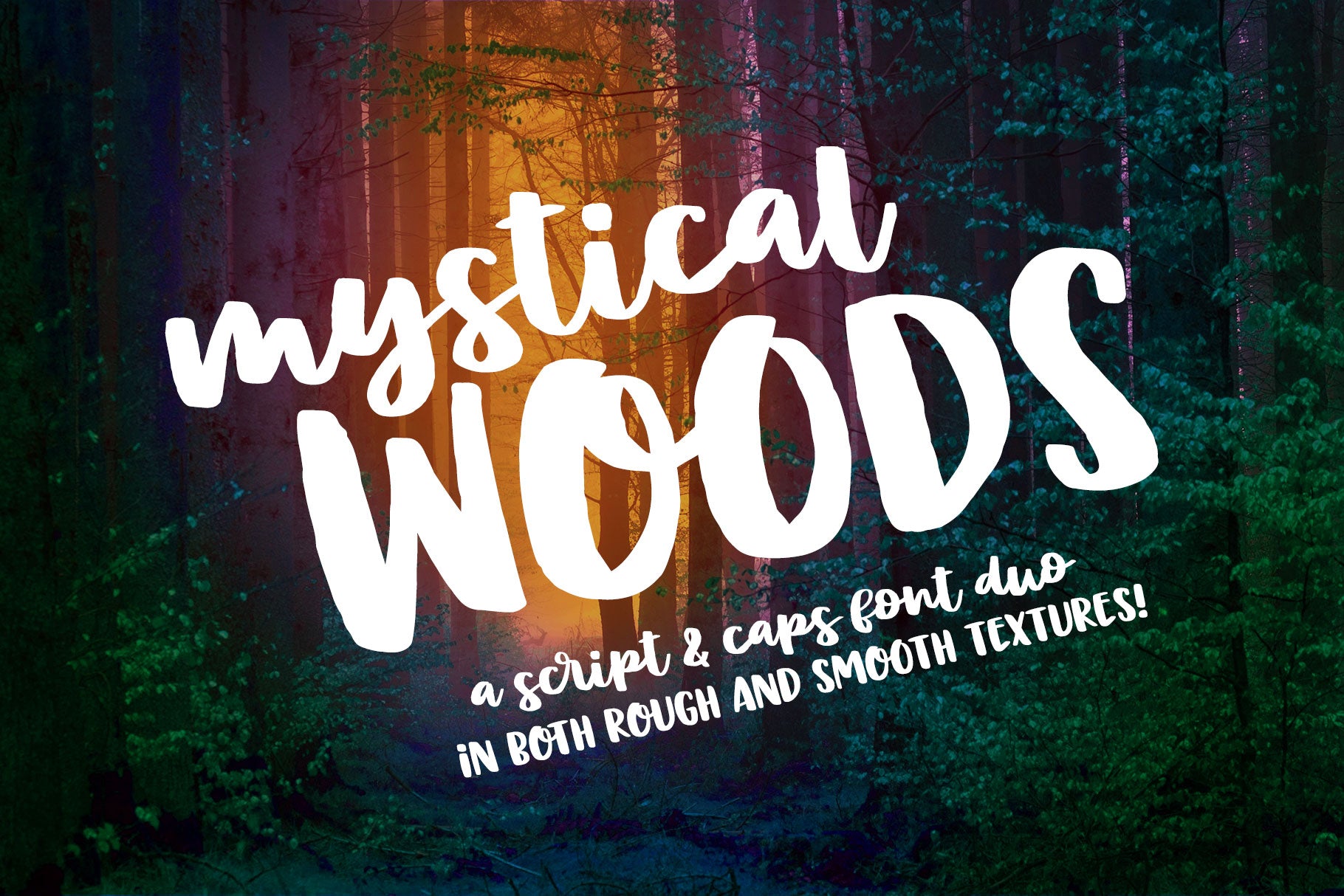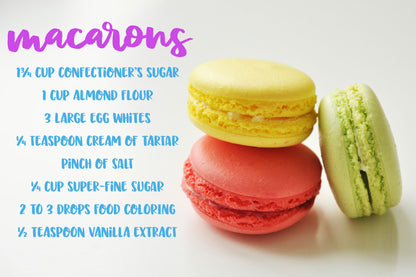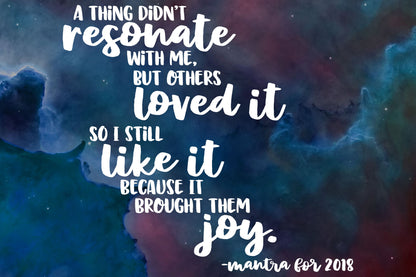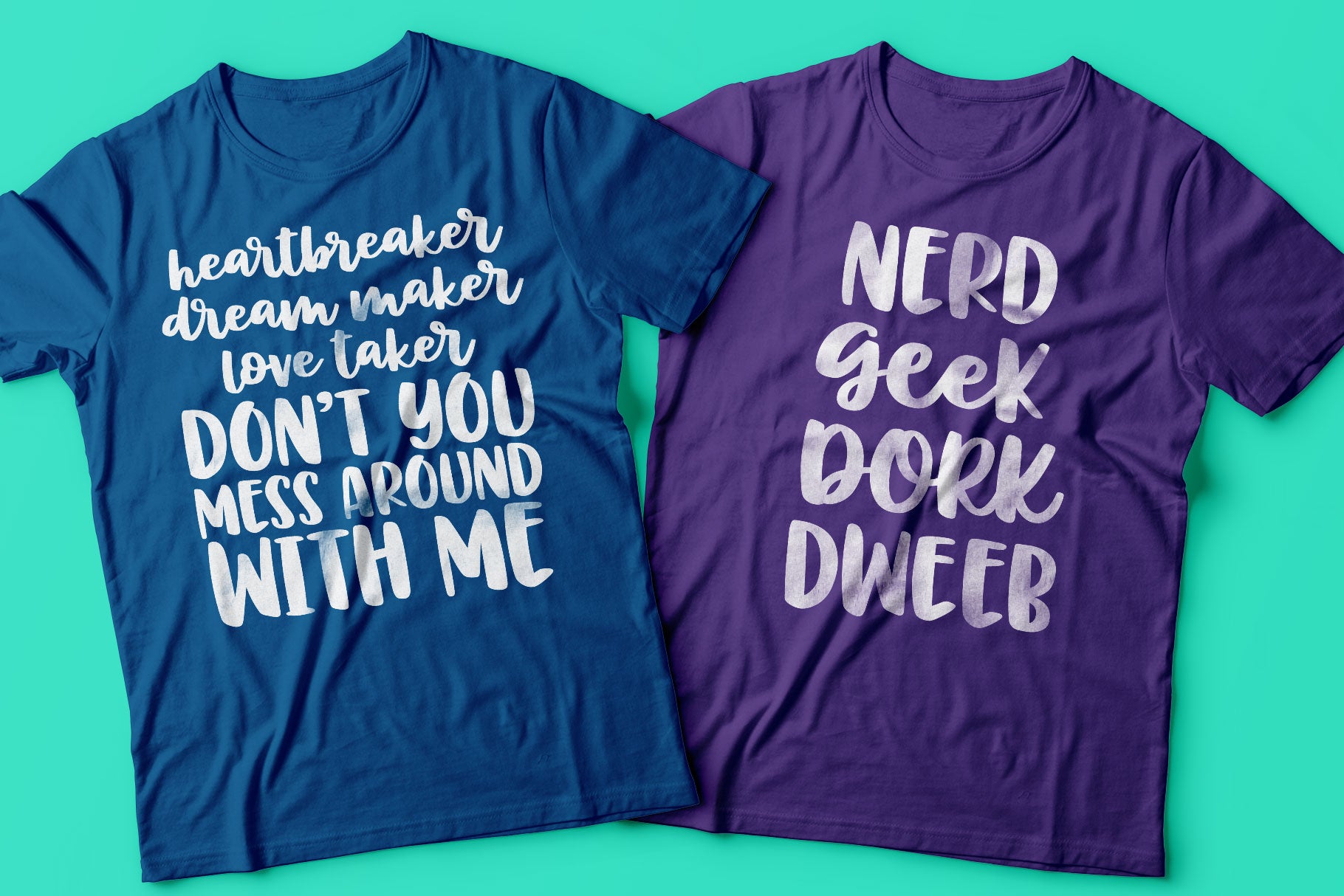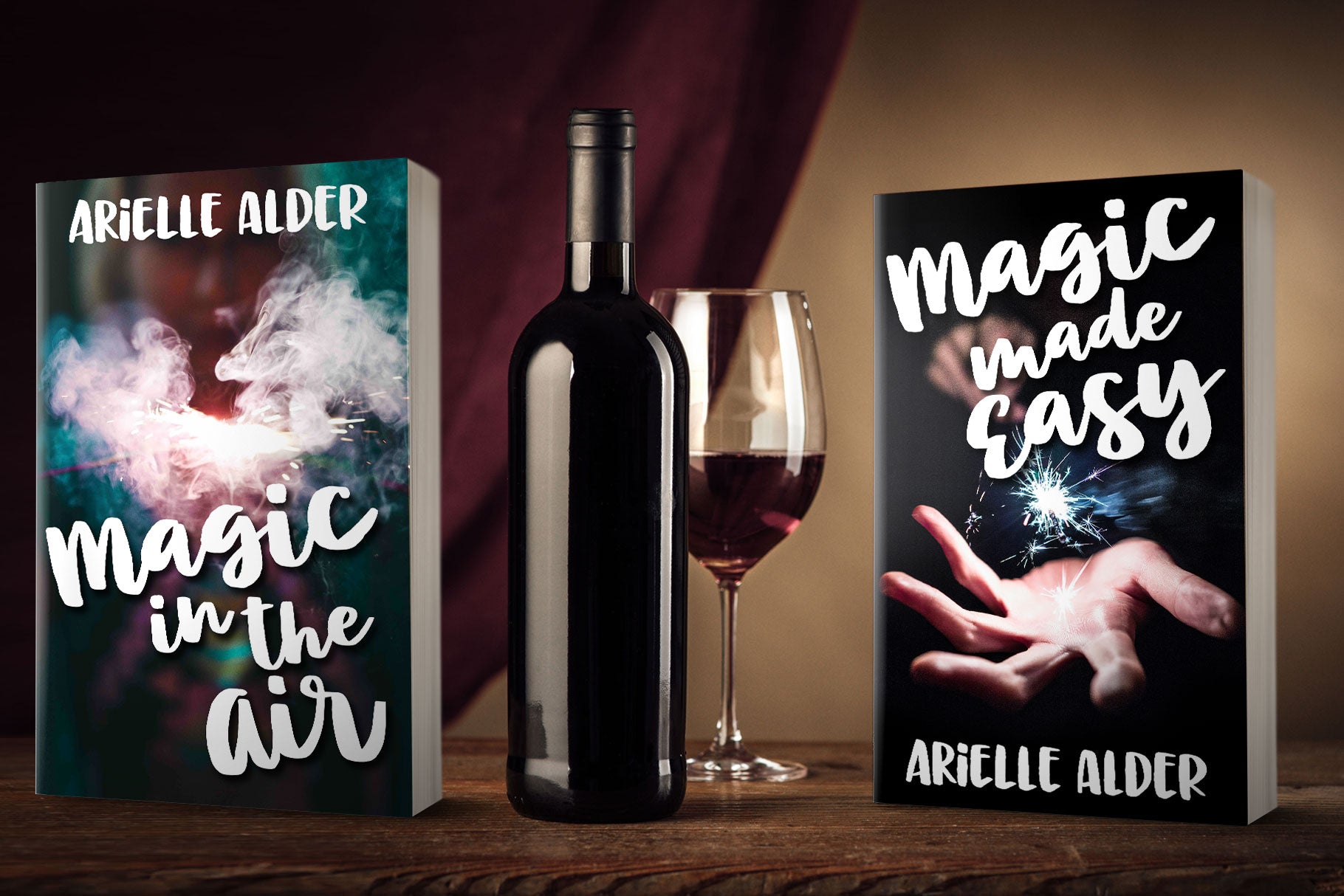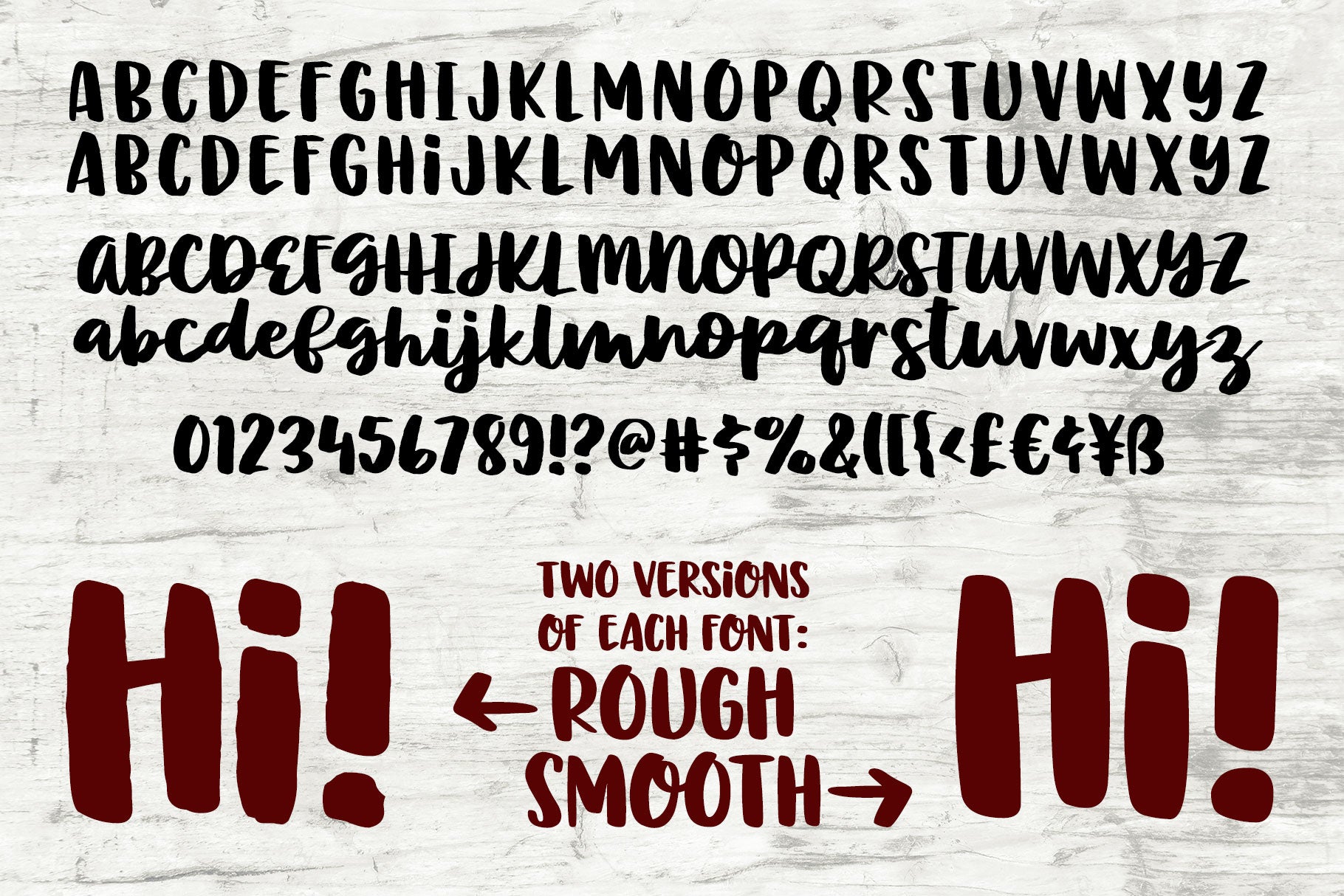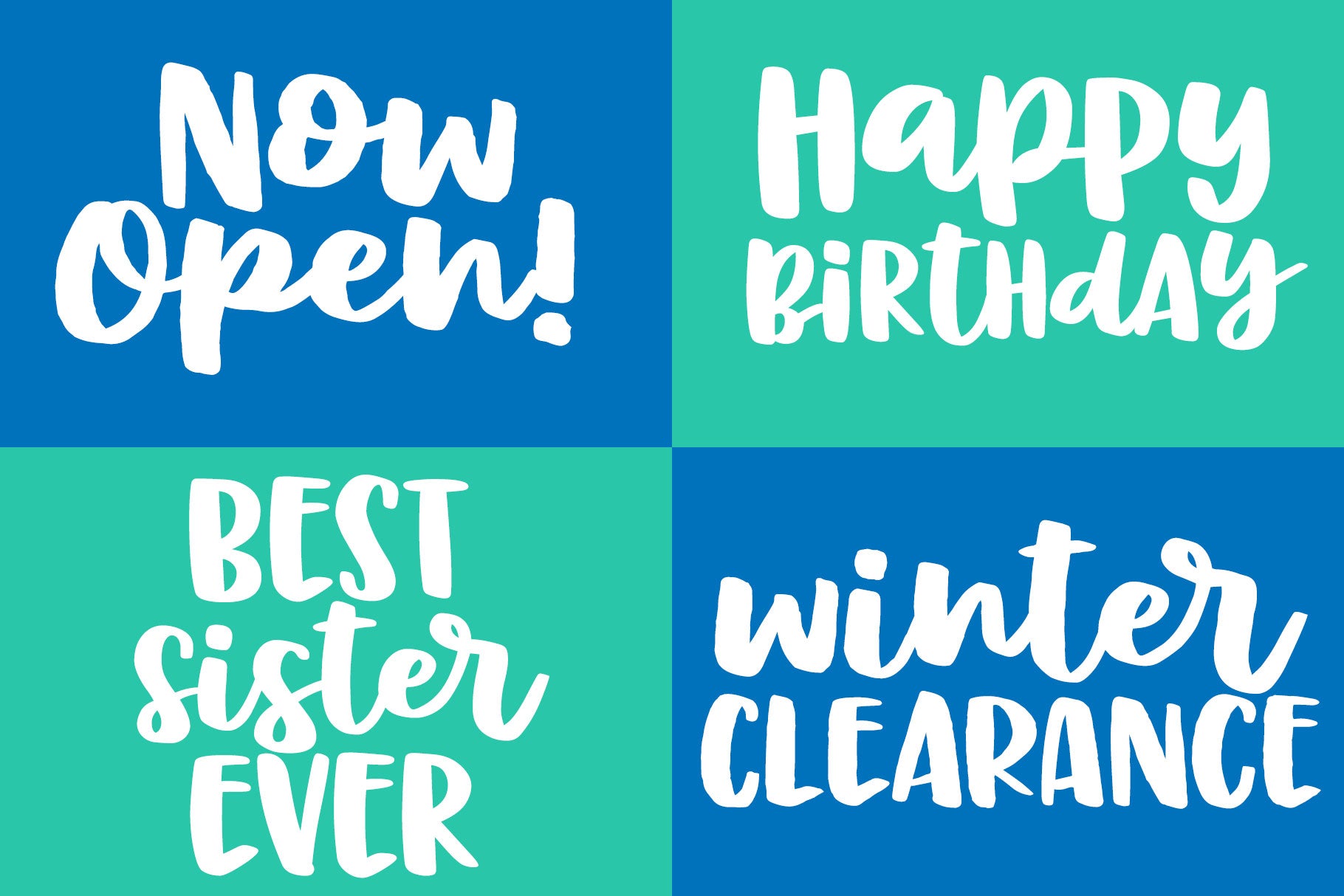
Mystical Woods is a script and caps font duo. I went back to the basics for this one -- ink and a brush on paper. I cleaned up the letters enough so that there are no jagged edges, but left enough of the character to keep that inky look -- those are the Rough fonts. Then I went back through again and cleaned the heck out of them, making every line and curve smooth for our cut-crafting friends -- those are the Smooth fonts.
Since these two fonts were written together with the same tools and style, you can also mix the script letters in with the caps letters!
Each font in the family comes with a full set of standard characters and punctuation, as well as over 300 extended Latin characters for language support. And the script fonts also have 45 double-letter ligatures!